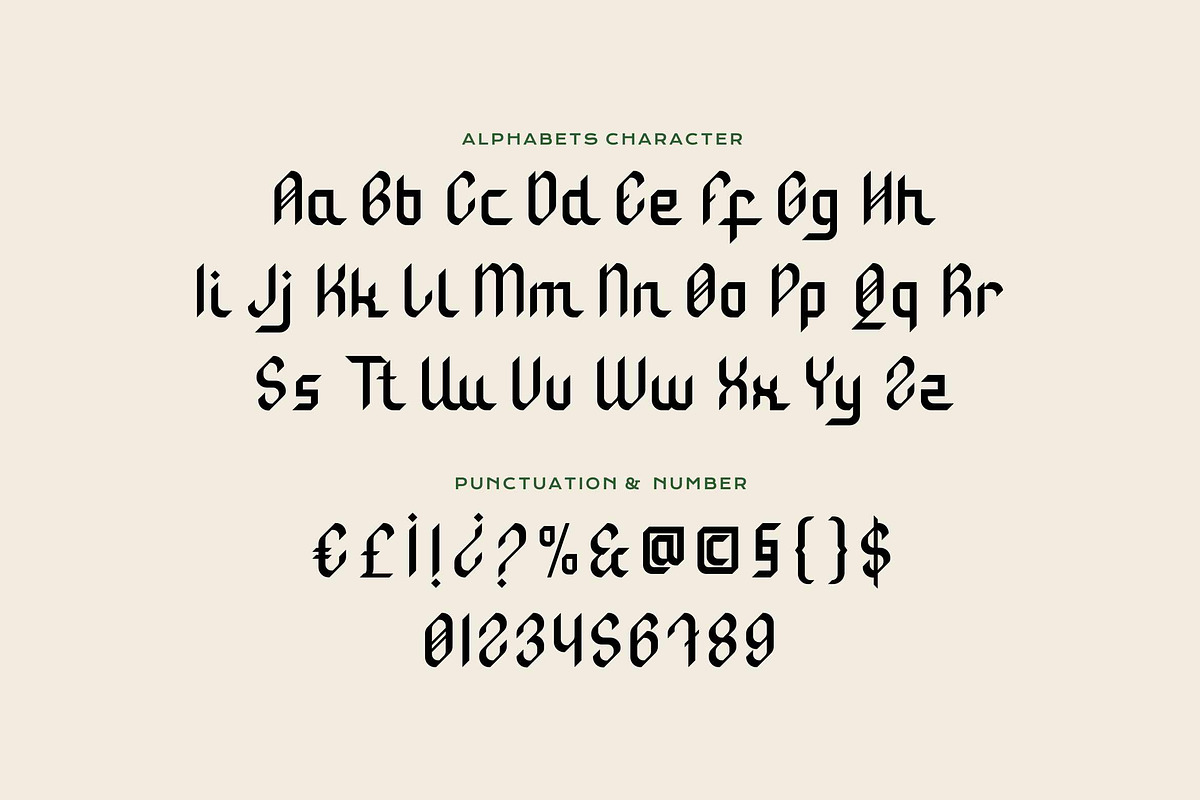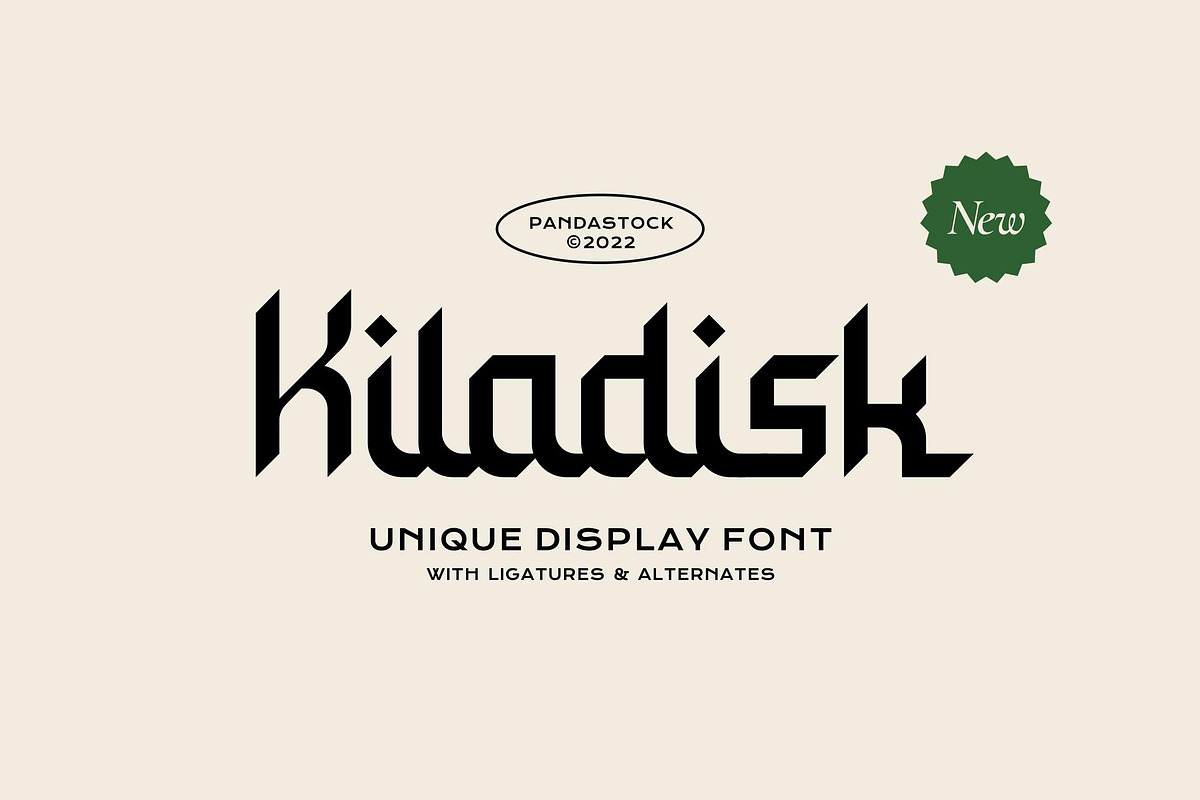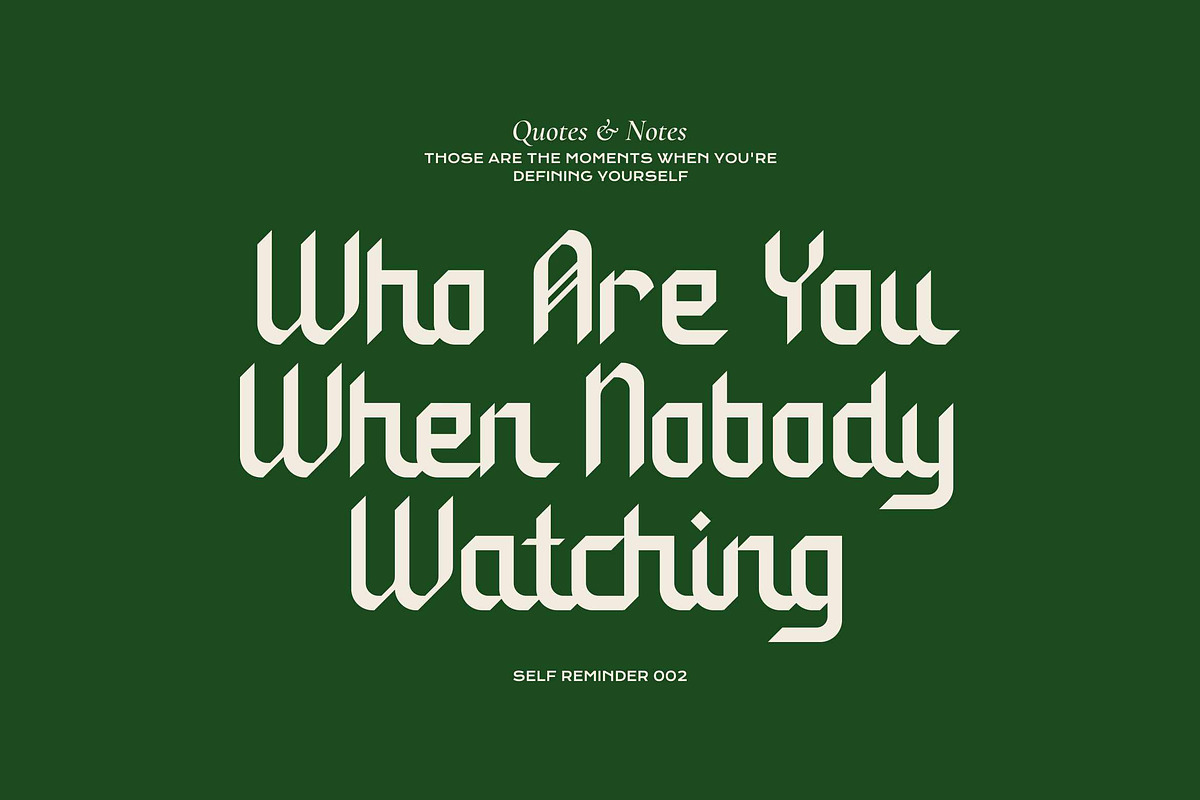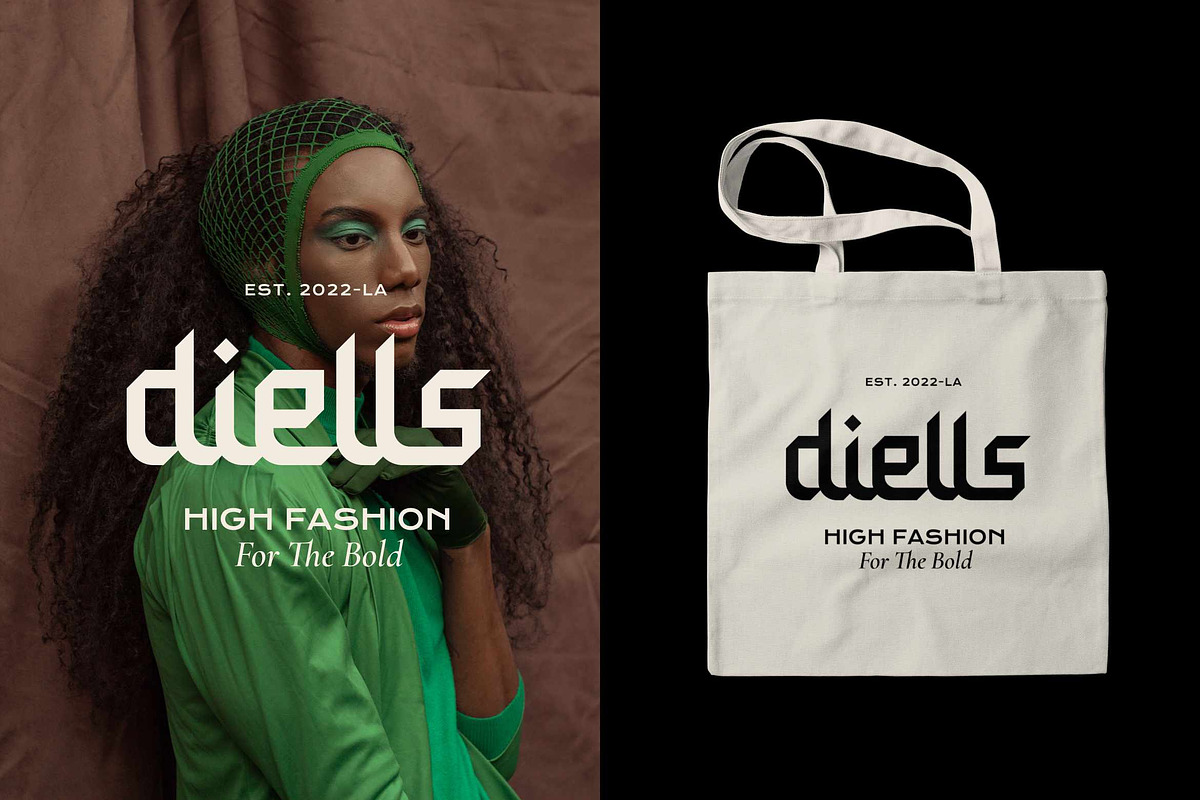
Kiladisk - Modern Kufic Calligraphy
Kiladisk is a powerfully unique display font where the ancient art of Kufic calligraphy meets the sharp edge of modern typography. Designed to make an unforgettable impact, Kiladisk masterfully fuses the geometric precision of Kufic script with the bold forms of blackletter, creating a voice that is both timeless and daringly new.
Drawing its soul from the principles of Kufic calligraphy, the letterforms in Kiladisk are a study in beautiful contrasts. Each character features assertive, blade-like terminals and strong angular lines that command attention. These are seamlessly connected by sweeping ligatures and extended baselines, creating the rhythmic, cohesive flow that is central to both the font and its calligraphic heritage. This gives your text a truly custom lettered feel, ensuring it stands out with elegance and power.
Kiladisk is exceptionally versatile, making it the perfect choice for a wide range of projects. It excels in:
- Modern Branding: Logos, logotypes, and corporate identity with a unique cultural edge.
- Islamic and Cultural Design: Luxury invitations, Ramadan and Eid campaigns, Halal branding, and certificates.
- High Fashion and Editorial: Magazine headlines, lookbooks, and edgy apparel design.
- Powerful Statements: Posters, social media quotes, and album art.
Kiladisk isn't just a font, it's a statement. It’s a bridge between heritage and modernity, designed for the bold, the creative, and the unforgettable.